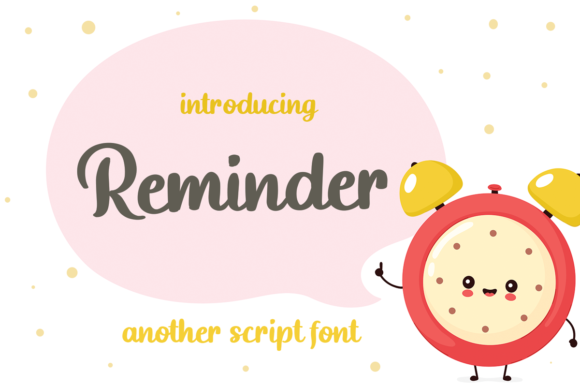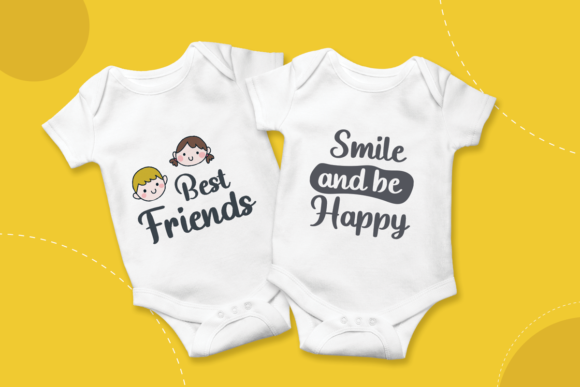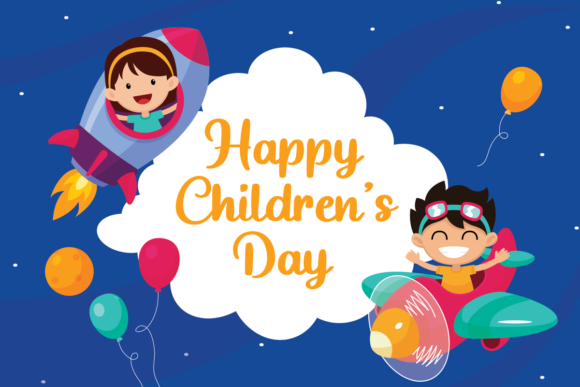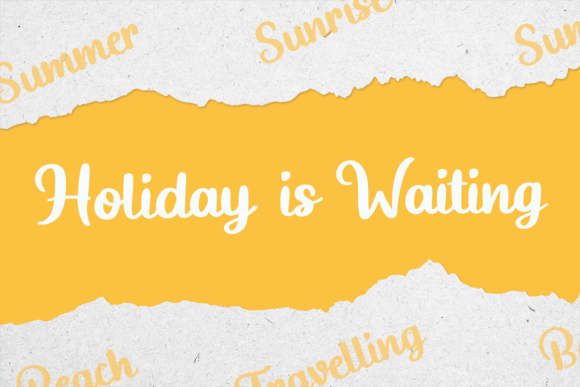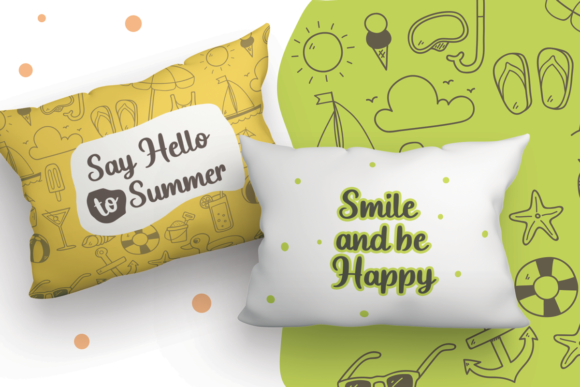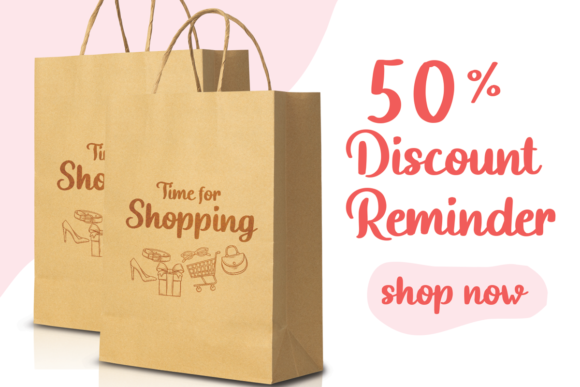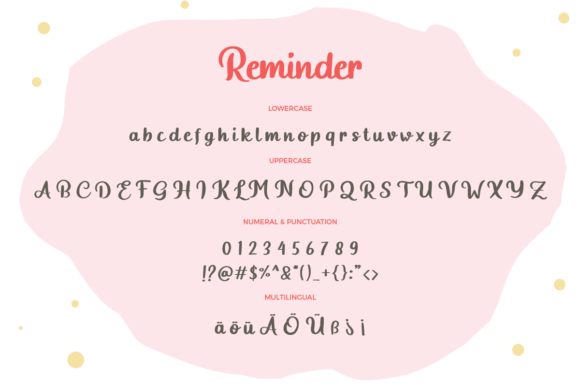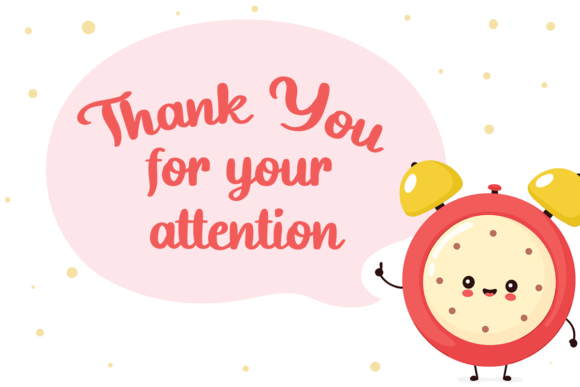
Reminder Font
About Reminder Font
Reminder is a sweet and friendly handwritten font. Its natural and unique style makes it incredibly fitting to a large pool of designs. The only limit is your imagination!